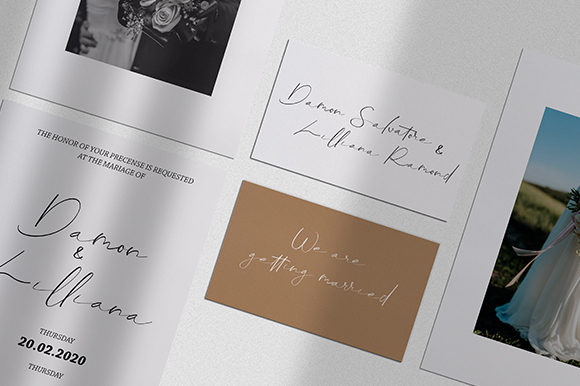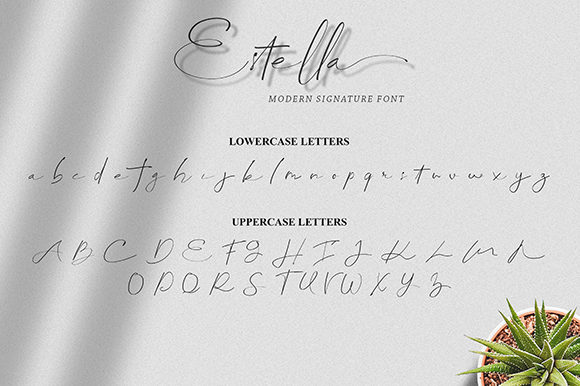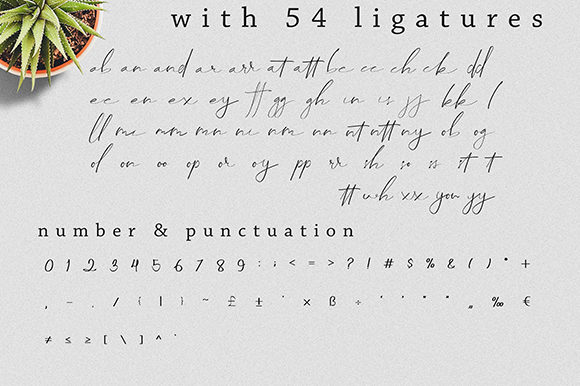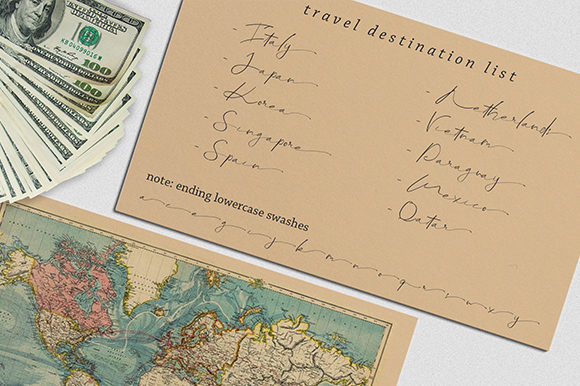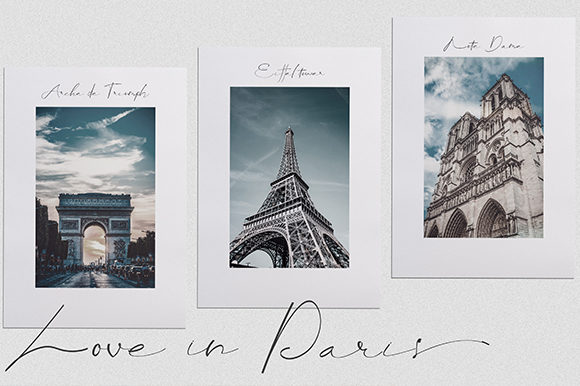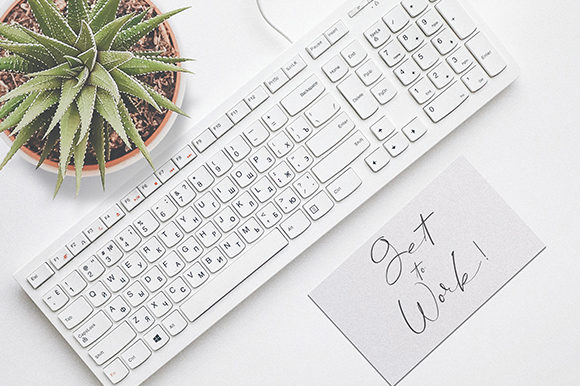
Introducing Estella Font: A Vibrant and Beautifully Balanced Script
Are you tired of using the same old fonts in your designs? Look no further than Estella Font, a vibrant and beautifully balanced script that is sure to ignite your creativity. With its unique feel and handwritten charm, Estella is the perfect addition to any design project.
What is Estella Font?
Estella Font is a script font that is designed to add a touch of elegance and sophistication to your designs. Its unique feel is achieved through a combination of flowing lines and carefully crafted letterforms, making it perfect for a variety of design applications, from branding and advertising to packaging and digital media.
Key Features of Estella Font
- Unique feel: Estella Font has a distinctive handwritten feel that sets it apart from other script fonts.
- Beautifully balanced: The font is carefully crafted to ensure that each letterform is balanced and visually appealing.
- Vibrant: Estella Font is a vibrant and energetic font that is sure to add a pop of personality to your designs.
- Handwritten charm: The font’s handwritten feel gives it a charming and approachable quality that is perfect for designs that need a personal touch.
Uses for Estella Font
Estella Font is a versatile font that can be used in a variety of design applications, including:
- Branding and advertising: Use Estella Font to create eye-catching logos, ads, and marketing materials that stand out from the crowd.
- Packaging: Add a touch of elegance and sophistication to your product packaging with Estella Font.
- Digital media: Use Estella Font to create engaging and interactive digital content, such as social media graphics, blog posts, and website headers.
- Crafting and DIY projects: Estella Font is also perfect for crafters and DIY enthusiasts who want to add a personal touch to their projects, such as handmade cards, scrapbooking, and journaling.
Tips for Using Estella Font
Here are a few tips for getting the most out of Estella Font:
- Use it sparingly: Estella Font is a bold and eye-catching font, so use it sparingly to avoid overwhelming your design.
- Pair it with other fonts: Estella Font pairs well with a variety of other fonts, so don’t be afraid to experiment with different combinations.
- Experiment with colors: Estella Font looks great in a variety of colors, so don’t be afraid to try out different color schemes.
Estella Font is a vibrant and beautifully balanced script that is sure to ignite your creativity. With its unique feel and handwritten charm, it’s the perfect addition to any design project. Whether you’re a designer, crafter, or DIY enthusiast, Estella Font is a great choice for anyone looking to add a touch of elegance and sophistication to their work.